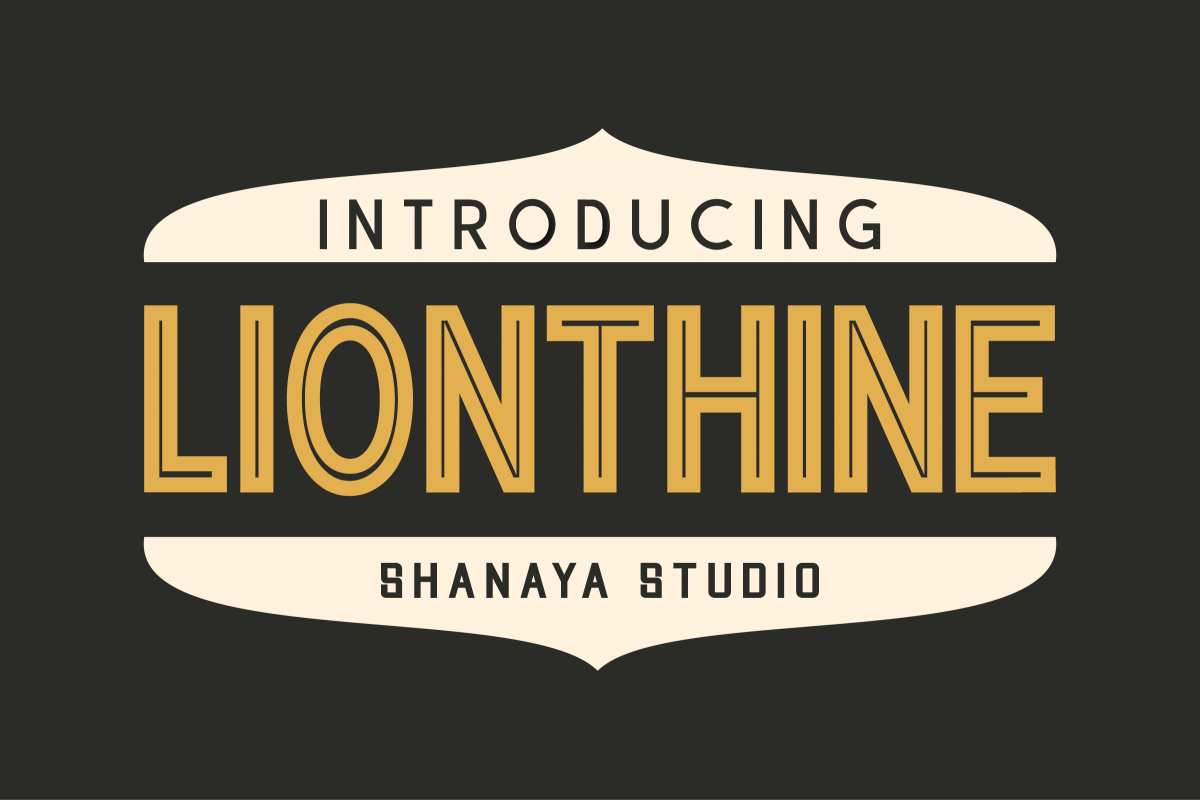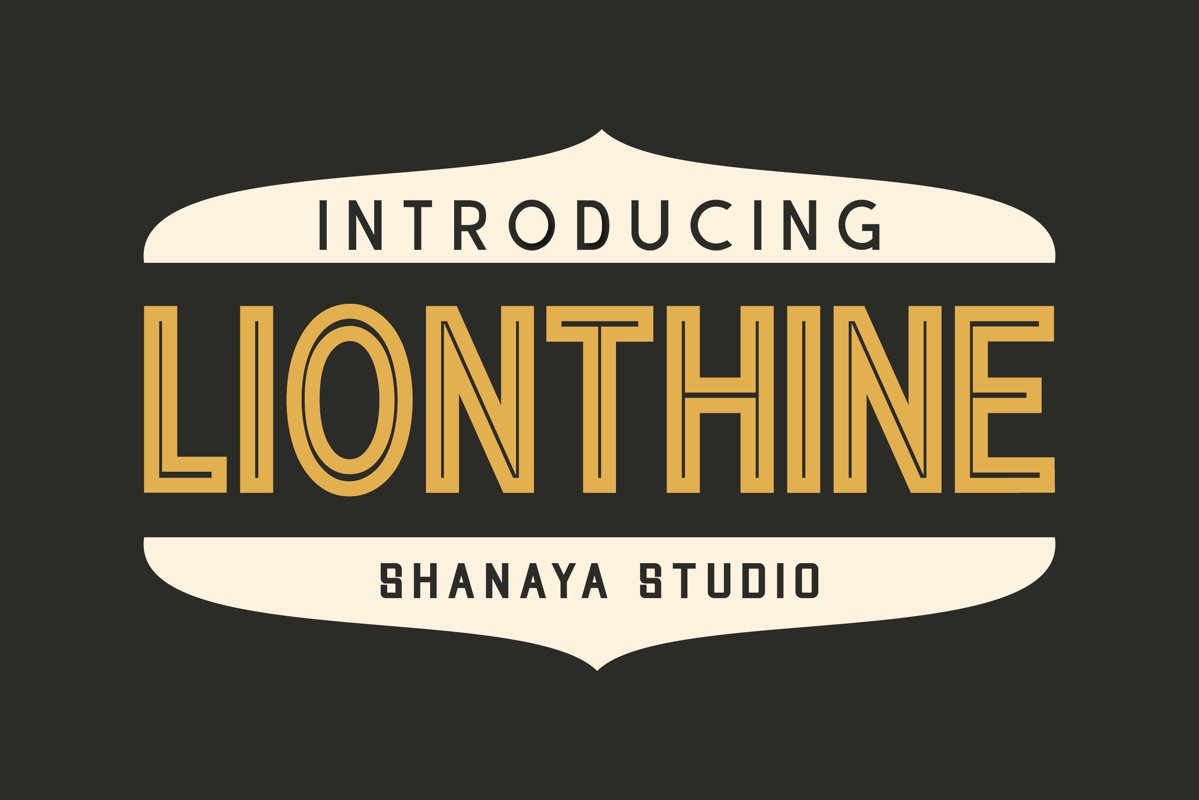
Lionthine l Elegant Typeface
Lionthine
The Lionthine is a font that takes the meaning of an elegant and classy pendant. With an outline style unlike most outline type fonts, Lionthine is made to have a thick outline with a thin inside forming a curved letter. Besides this font also adapts bold type fonts that are sturdy and look strong. This makes it can look beautiful and comfortable to the eye. Perfect for invitations, magazines, headline, business card, trademark, game websites, logos, and more!